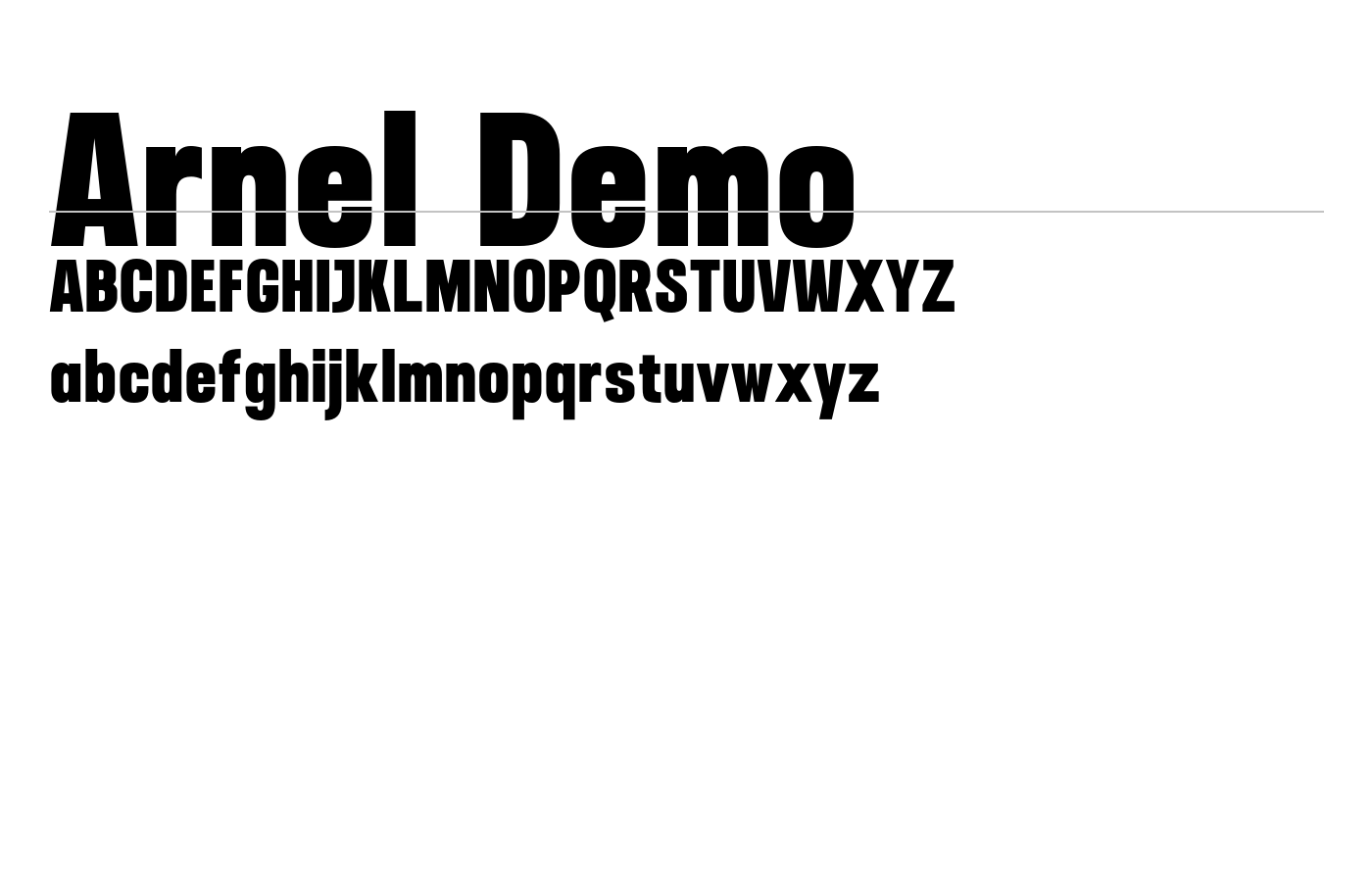
Arnel Demo is a bold, condensed sans serif font with a strong, impactful presence. Its tall x-height and uniform stroke weight create a modern and assertive feel, making it ideal for attention-grabbing headlines, branding, and display use where clarity and strength are key. This font works well in projects that need a straightforward, confident style without decorative distractions.
Arnel Demo Font
About Arnel Demo Font
| Font family | Arnel Demo Font |
| Designer | Craft Supply Co |